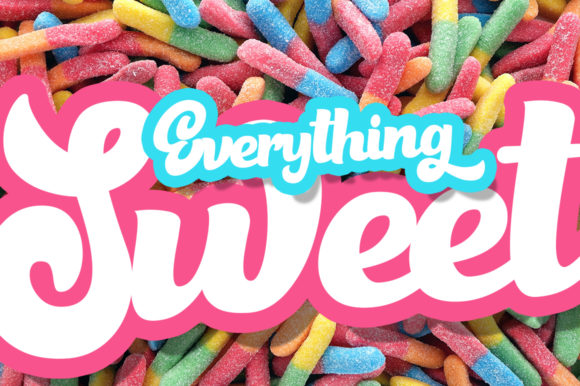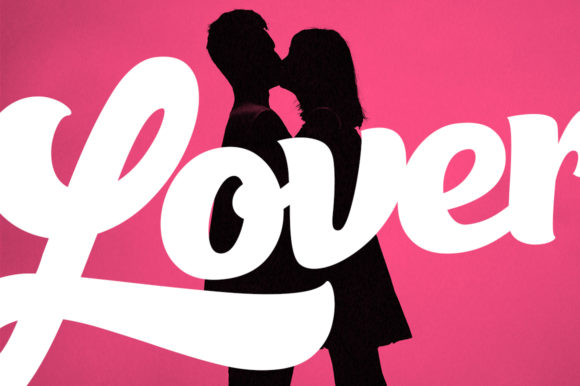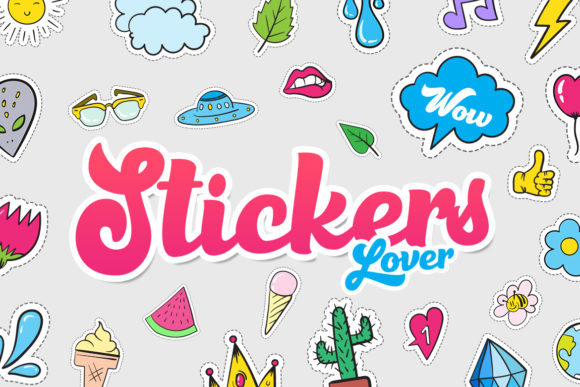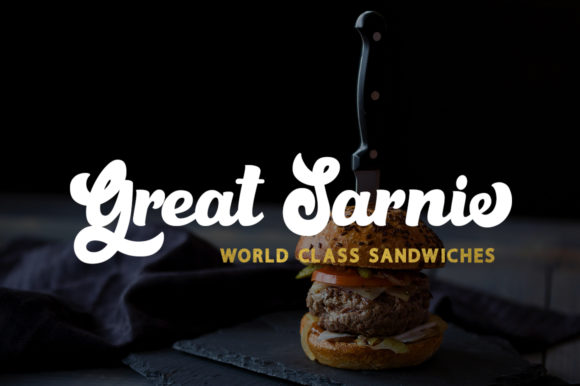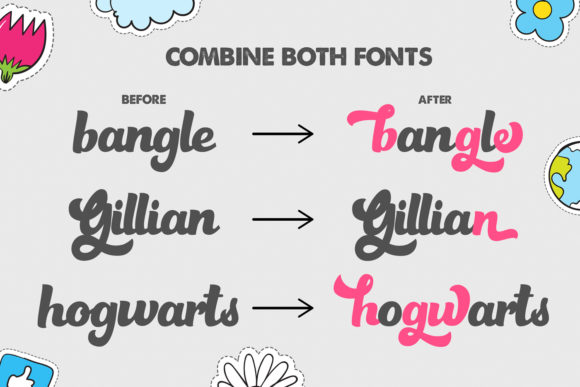
HomeScript FontsGazillions Font Script Fonts Gazillions Font FacebookXPinterestWhatsApp Gazillions Font Poster 2 Gazillions Font Poster 3 Gazillions Font Poster 4 Gazillions Font Poster 5 Gazillions Font Poster 6 Gazillions Font Poster 7 About Gazillions Font Gazillions is a sweet and cool handwritten font with a unique flavor. Get inspired by its unique style. DOWNLOAD ON CREATIVE FABRICAThis font is sold and delivered by Creative Fabrica. Font Canyon may earn a commission if you buy through this link. People also explored Kuaco Font Bright Holiday Font Mood Booster Font Milyone Font Aneliya Font Cute Deer Font Halliday JNL Font Angel Rose Font My Fox Font 286 0 TagsGazillions Font Previous articleCalifornia Street FontNext articleHarelia Script Font LEAVE A REPLY Cancel reply Comment: Please enter your comment! Name:* Please enter your name here Email:* You have entered an incorrect email address! Please enter your email address here Website: Save my name, email, and website in this browser for the next time I comment. Personal Use Free Micahel Personal Use Free Read more about this font Letter Hanger Personal Use Free Read more about this font Marthissa Personal Use Free Read more about this font Sebastopol Personal Use Free Read more about this font BLOG The 10 Best Handwriting Fonts to Add Personality to Your Designs 10 of the Best Handwriting Fonts for Adding Personality to Your Designs There will undoubtedly be no other better choice than handwriting fonts to give... Best Fonts for YouTube Videos: Make Your Thumbnails Stand Out Top 7 Google Fonts Alternatives for Faster and Privacy-Friendly Web Design (2025) Elegant Wedding Invitation Fonts – Handwritten & Script Fonts